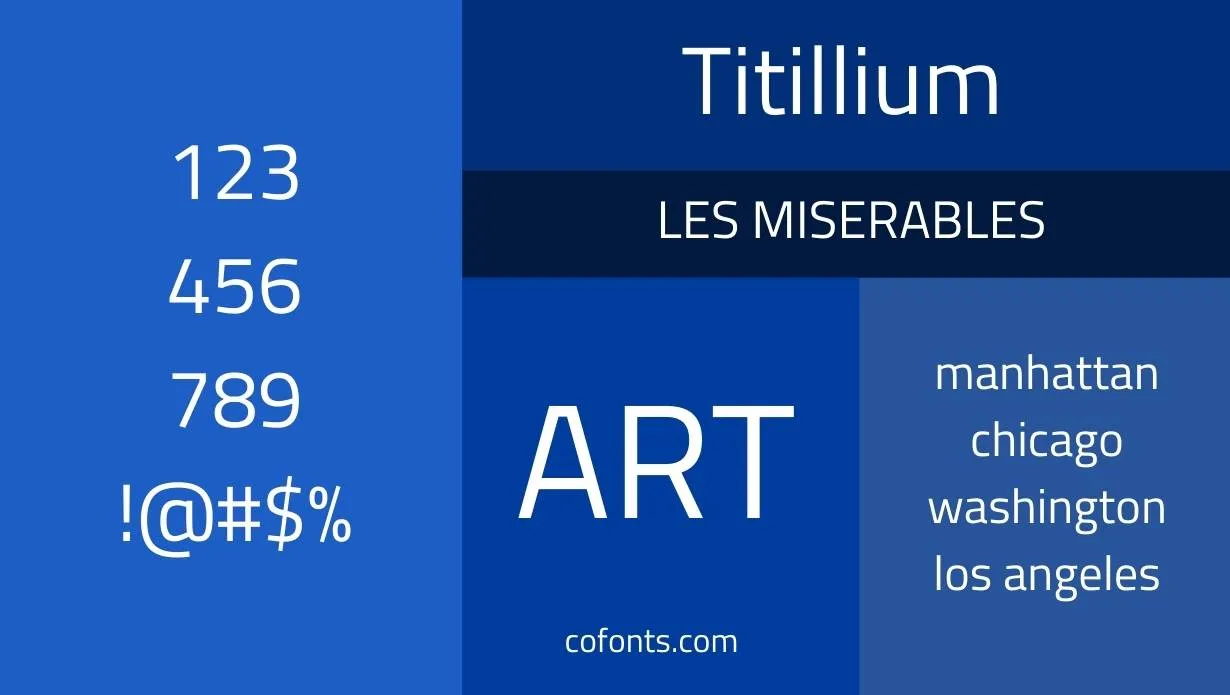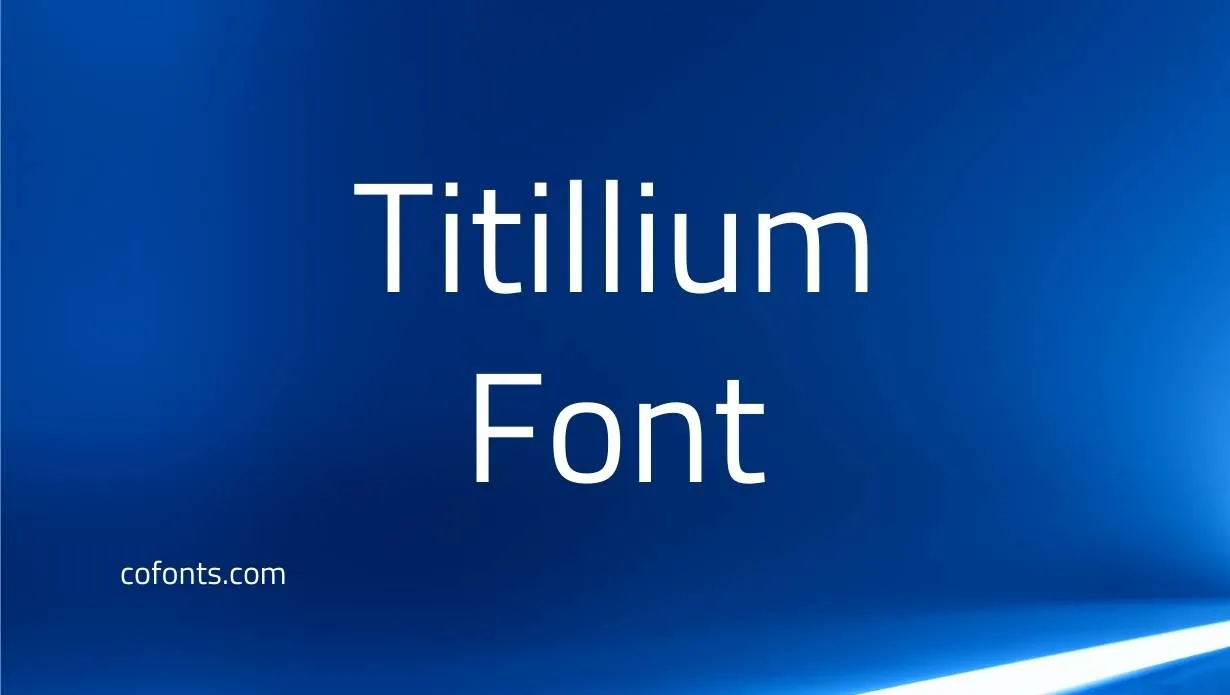
Titillium Font
About Titillium Font
Titillium Font is a modern typeface available in multiple variants and styles.
- Titillium Font Regular
- Titillium Font Bold
- Titillium Font Italic